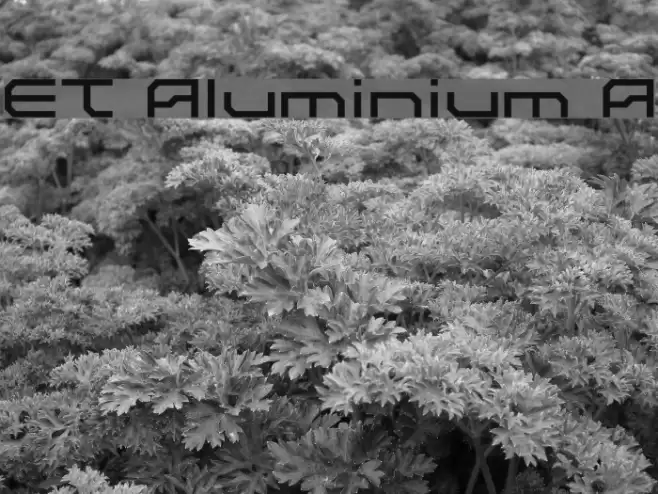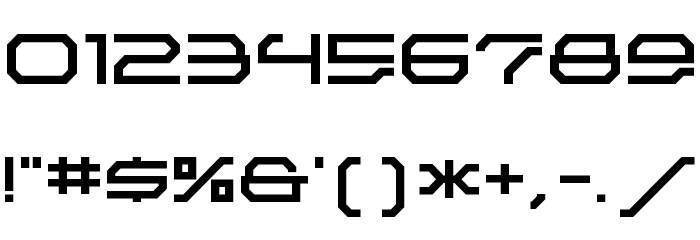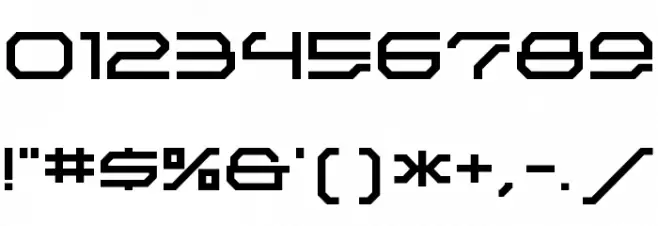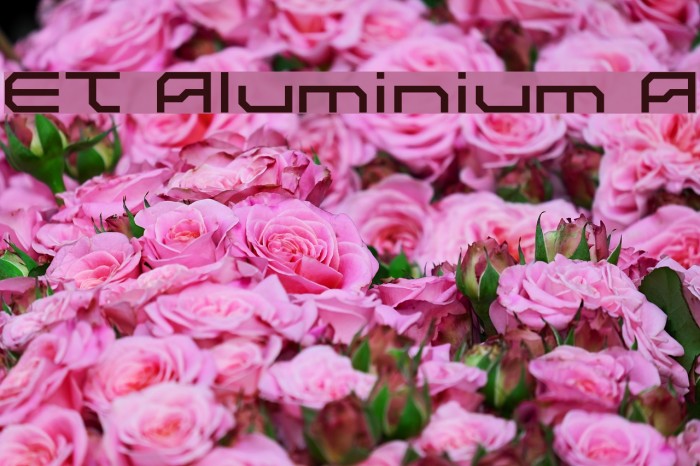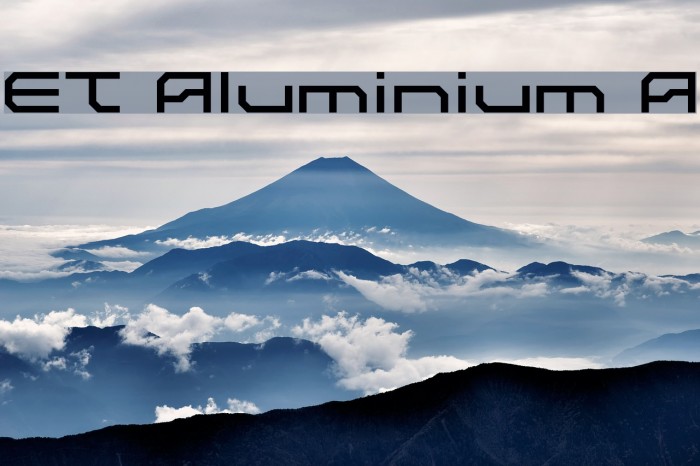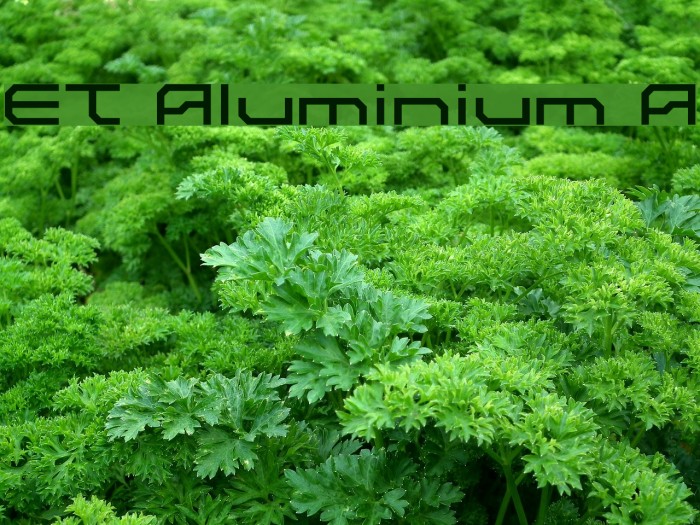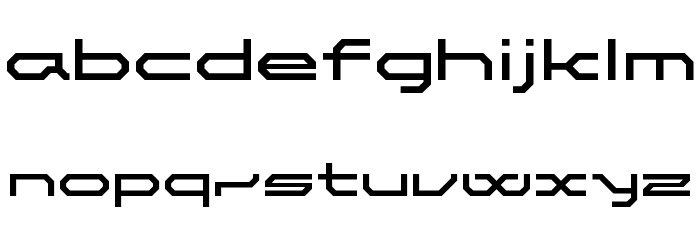
ET Aluminium A Font
ET Aluminium A Description
This font features a futuristic and geometric design, characterized by its angular and sharp edges. The uppercase letters are bold and structured, giving a sense of strength and modernity. The lowercase letters maintain the geometric theme but with a slightly softer touch, providing balance. Numbers and special characters are consistent with the overall style, ensuring uniformity across all glyphs. The font's design is reminiscent of digital or technological themes, making it suitable for projects that require a modern and edgy look.
A futuristic, geometric font with angular and sharp edges from Uncategorized fonts.